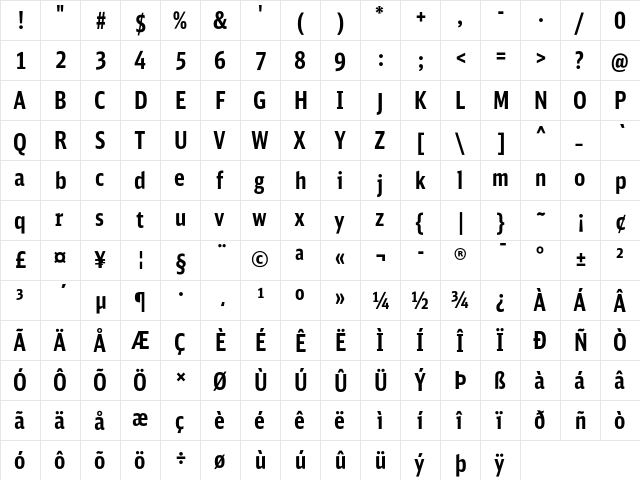
DB Sans Comp Bold
Design Context for DB Sans Comp Typeface
DB Sans Comp takes a measured approach to typography — its balanced proportions and neutral character make it a reliable workhorse for both digital and print work. The heavy weight commands attention and anchors typographic hierarchies.